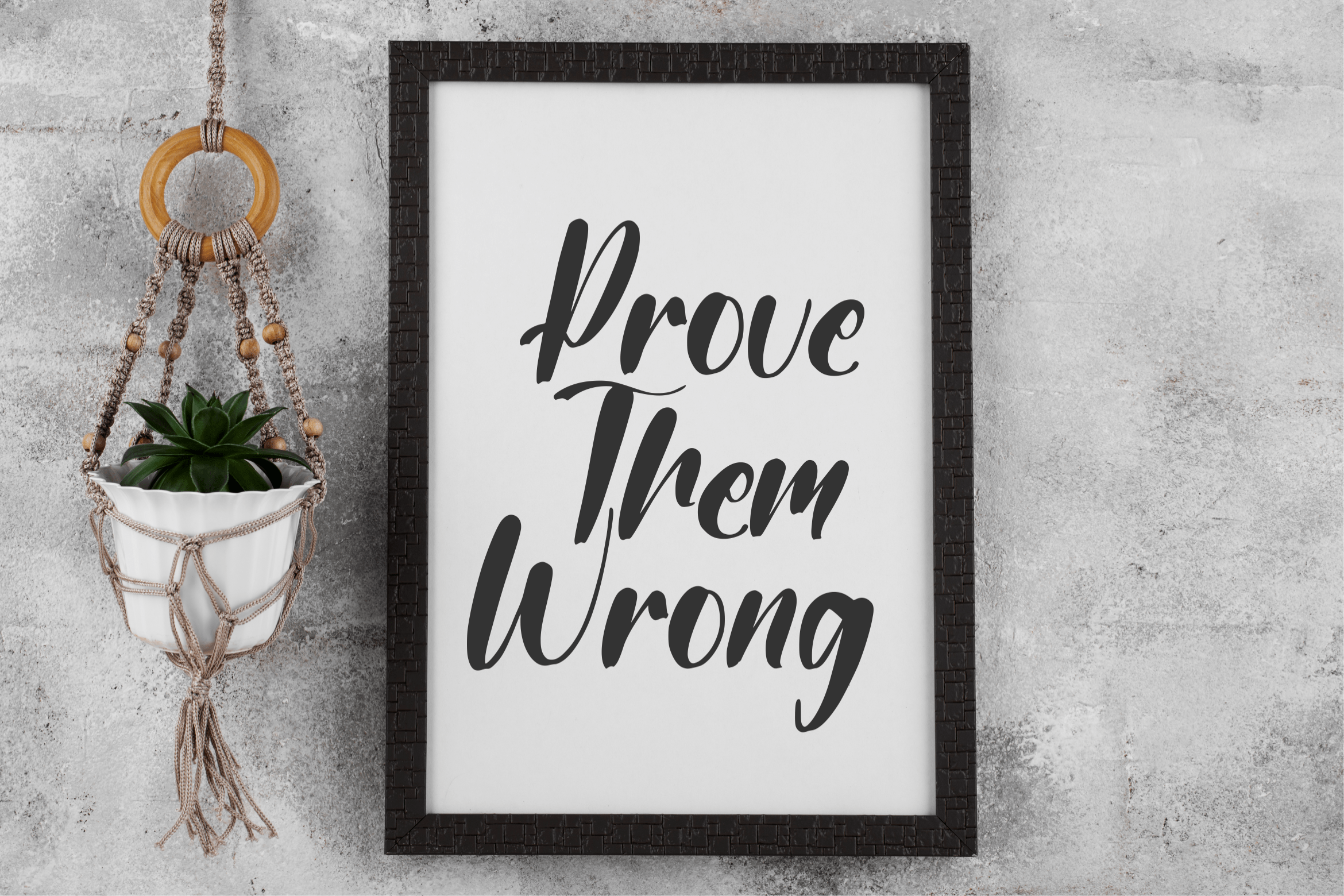
Westluck Script Font is perfect for product packaging, branding project, magazines, social media, weddings, or just used to express words above the background.